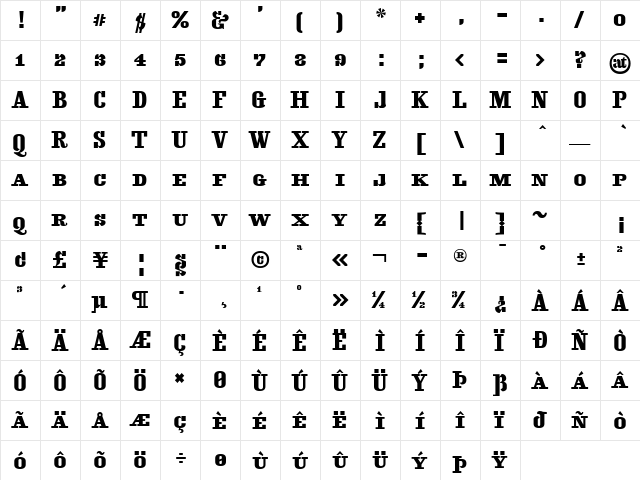
Beetle Carapace
Design Context for Beetle Typeface
Beetle takes a measured approach to typography — its balanced proportions and neutral character make it a reliable workhorse for both digital and print work.
Pro Tip: Pair Beetle with a font of contrasting weight or personality to build a more expressive typographic hierarchy.